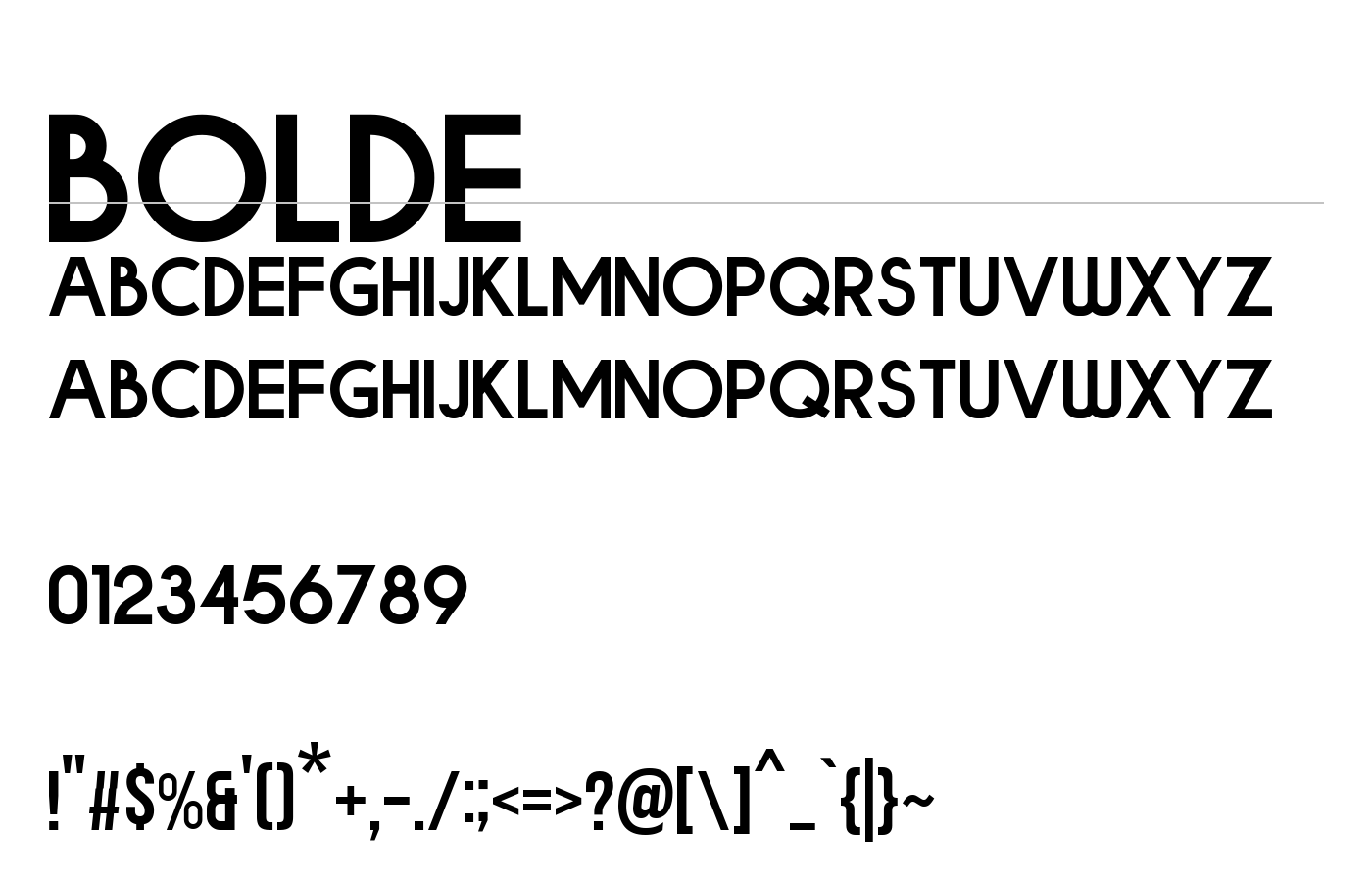
BOLDE is a bold, geometric sans serif font with a strong, modern feel. Its clean lines, high x-height, and slightly condensed letterforms convey confidence and clarity, making it ideal for headlines, branding, and editorial designs that need a contemporary, impactful presence. This font suits projects aiming for a sleek, professional look with a touch of boldness.
BOLDE Font